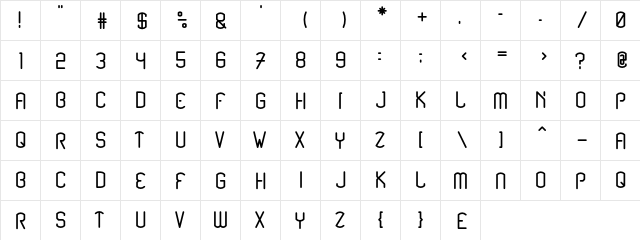
Renesnip Sans Regular
Design Context for Renesnip Sans Typeface
Renesnip Sans takes a measured approach to typography — its balanced proportions and neutral character make it a reliable workhorse for both digital and print work.